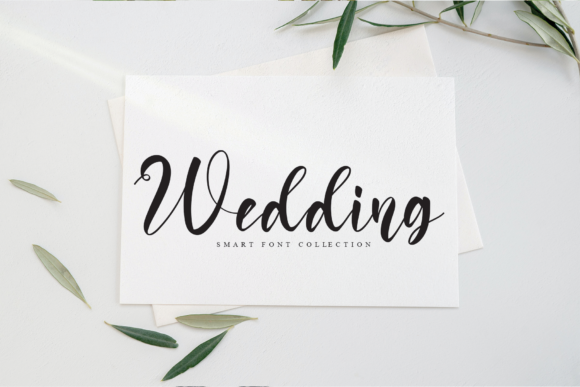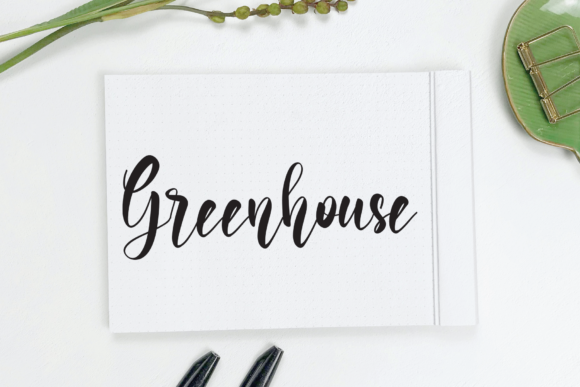
Esteemed Font
db-ku.com - Script & Handwritten -- Esteemed is a classic script font. Fall in love with its completely different and timeless style and use it to create spectacular designs!